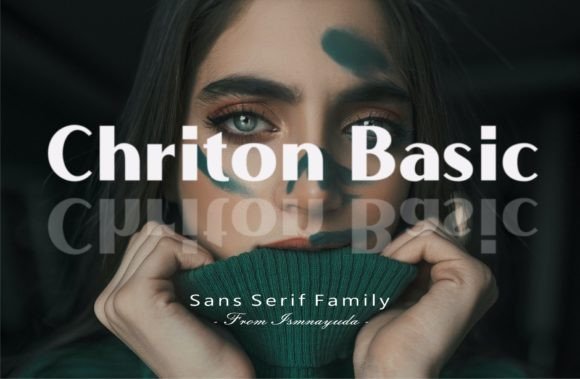
Unleashing Creativity with the Perfect Font
As a designer, have you ever found yourself stuck in front of a blank screen, desperately searching for the perfect font to bring your project to life? The struggle is real, but what if I told you that the solution is just a click away? Introducing the Chriton Basic Font, a stunning sans-serif font that exudes elegance and sophistication.
Designed to elevate the beauty of your projects, the Chriton Basic Font is a masterclass in balance and variety. Its delicate yet not-too-thin design makes it perfect for a wide range of applications, from branding and marketing materials to digital products and publications. Whether you’re a seasoned pro or just starting out, this font is a valuable addition to any designer’s toolkit.
With its versatility and timeless charm, the Chriton Basic Font is sure to become your go-to choice for any project that requires a touch of class and sophistication. So why settle for an ordinary font when you can unleash your creativity with the perfect one?
Chriton Basic Font Key Features
- Unique Characteristics: Chriton Basic Font features a clean, modern design with subtle rounded edges, giving it a friendly and approachable feel.
- Font Style: The font is available in regular and italic styles, providing flexibility for designers and typographers to create visually appealing layouts.
Designer Review: Chriton Basic Font
Overall, I’d say the Chriton Basic Font has some great qualities, but also some notable limitations.
- Simple and Clean Design: Chriton Basic Font has a minimalist aesthetic that makes it perfect for body text or headings where you want to avoid clutter.
- Legibility: The font is highly legible, even at smaller font sizes, making it suitable for digital use.
- Neutral Personality: The font’s neutral personality makes it versatile and easy to pair with other fonts.
- Lack of Distinction: The font may be too plain and lack character for applications where you want to make a statement.
- No Stylistic Alternates: The font lacks stylistic alternates or swashes, which can make it feel less dynamic.
- Not Suitable for Display: Chriton Basic Font is not ideal for display use, such as headings or titles, where a more eye-catching font is preferred.
Overall, I’d give Chriton Basic Font 3 out of 5 stars. While it’s a solid choice for body text and digital use, it falls short in terms of personality and display use.
Tips for Getting the Most Out of Chriton Basic Font
Chriton Basic Font is a versatile font that can be used in a variety of applications. To get the most out of it, consider the following tips:
– Use it for body text to create a clean and modern look.
– Pair it with a bold font for headings to create contrast.
– Experiment with different font sizes and colors to find the perfect balance.
Chriton Basic Font is commonly used in:
– Corporate communications, such as reports and presentations.
– Digital marketing materials, such as social media posts and email campaigns.
– Websites and blogs,
Alternatives to Chriton Basic Font
Lato is a sans-serif font that is highly versatile and suitable for both body text and headings. It is clean, modern, and works well in digital media. Lato is often used in web design, advertising, and editorial content. It is similar to Chriton Basic Font in its simplicity and readability, but Lato has a slightly more modern feel.